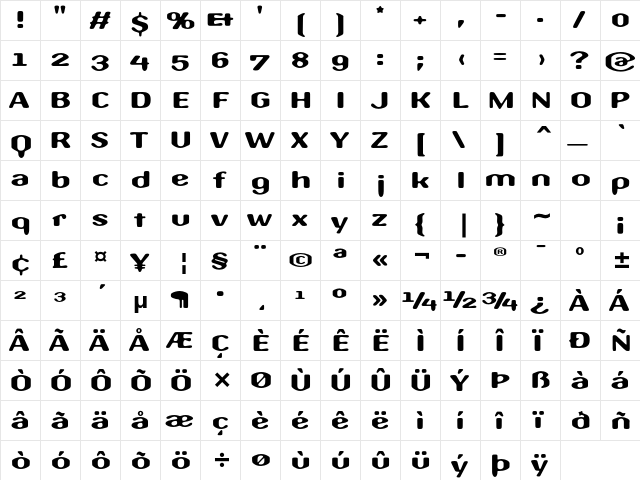
Aspirin ITC Std Regular
| Designer | Taouffik Semmad |
Design Context for Aspirin ITC Std Typeface
Aspirin ITC Std is a composed and adaptable typeface that performs quietly and consistently across a wide range of design contexts.